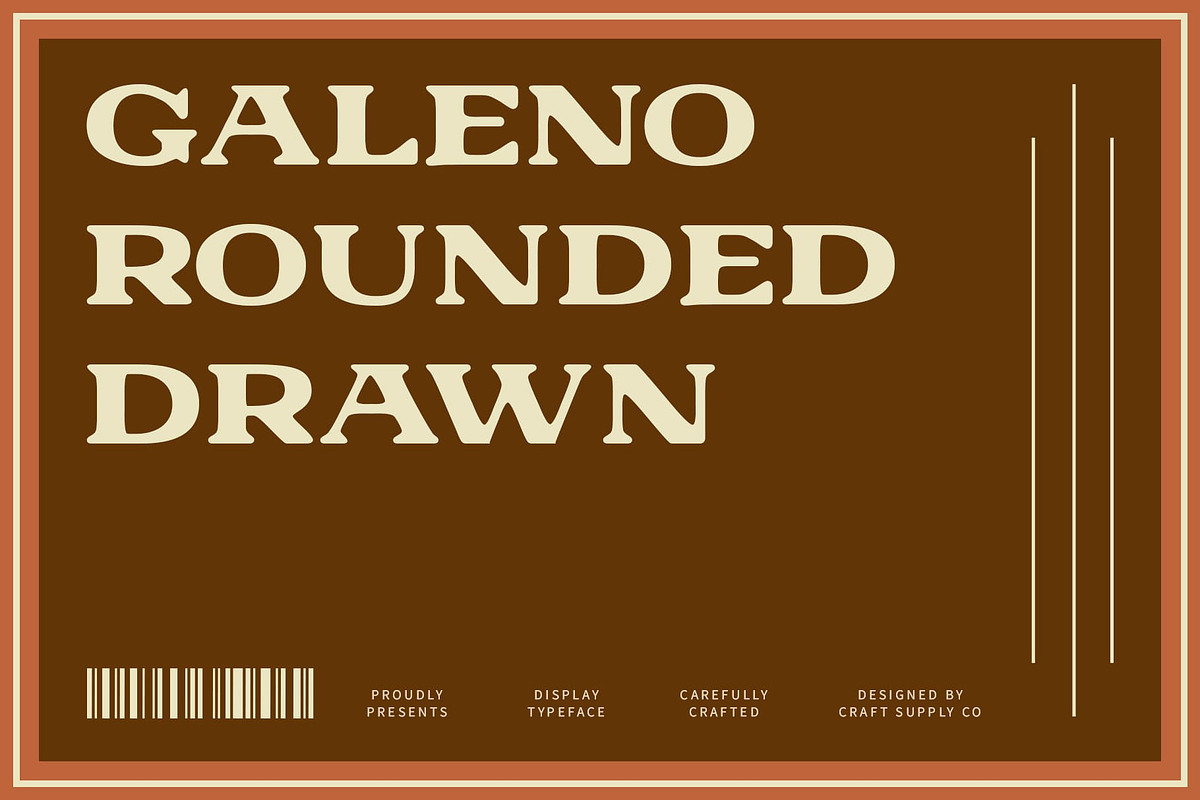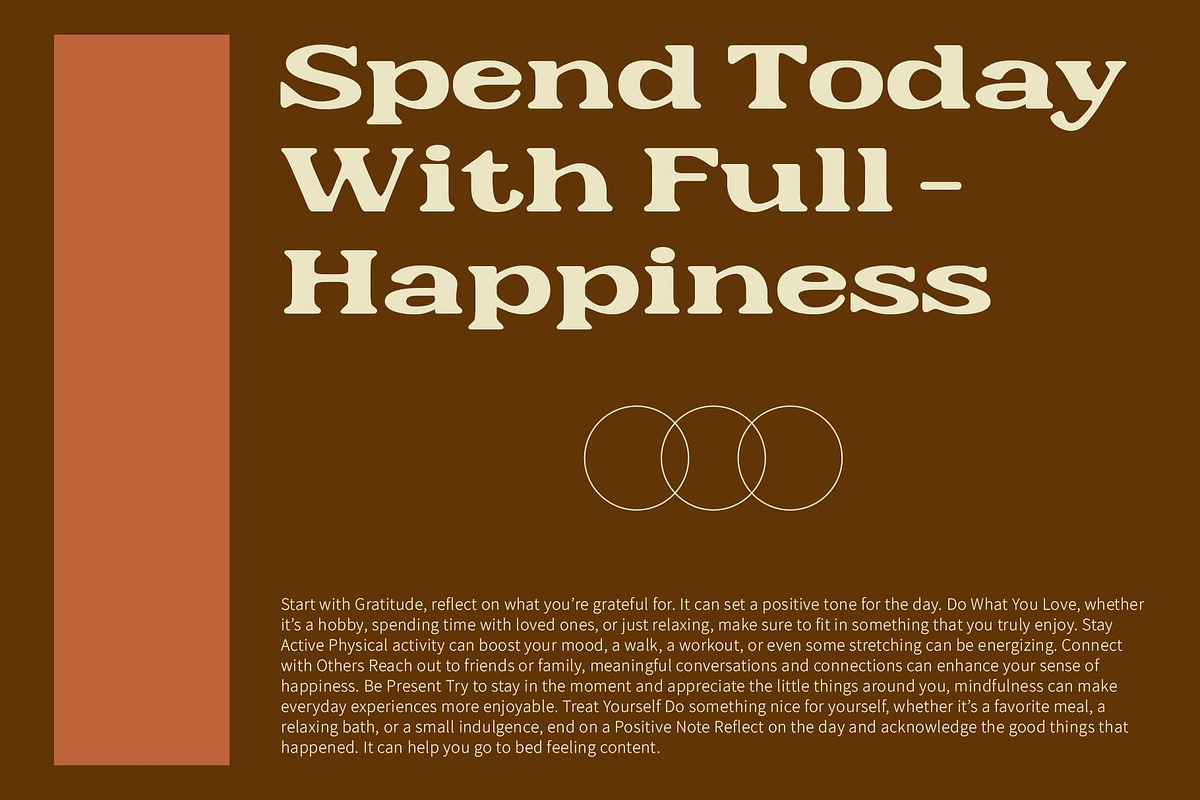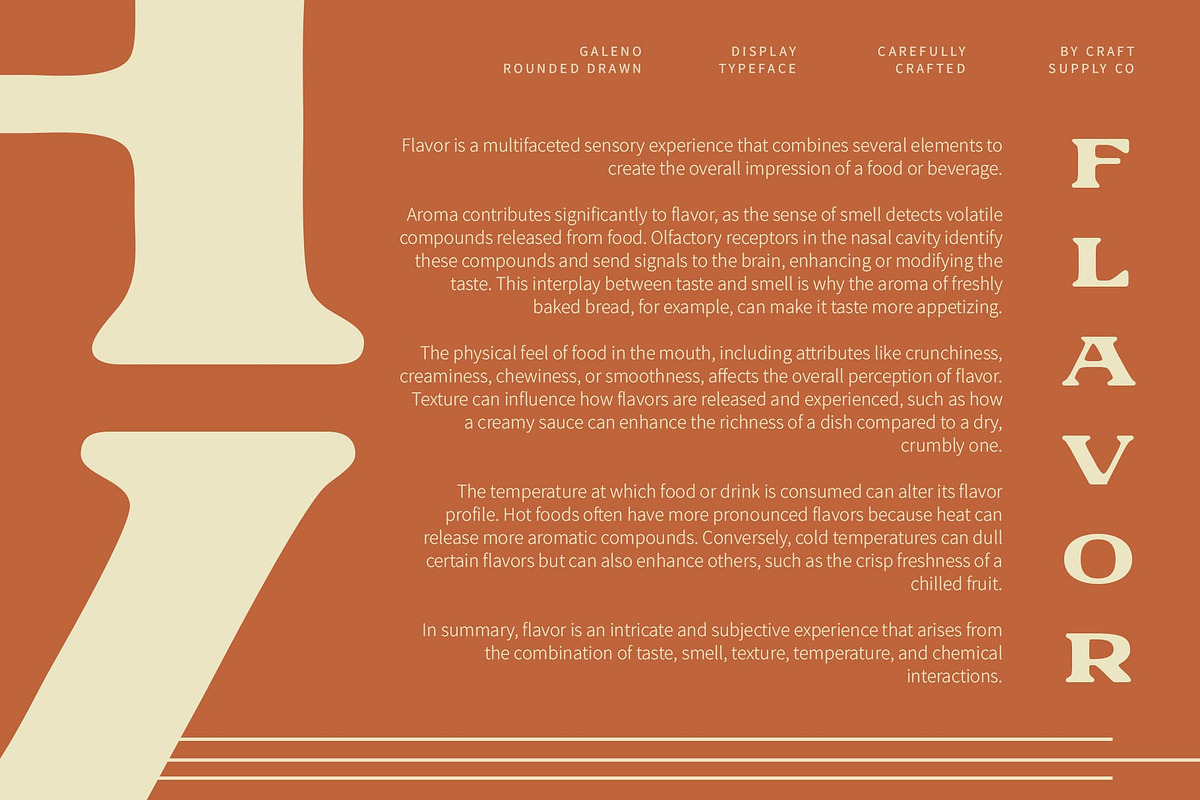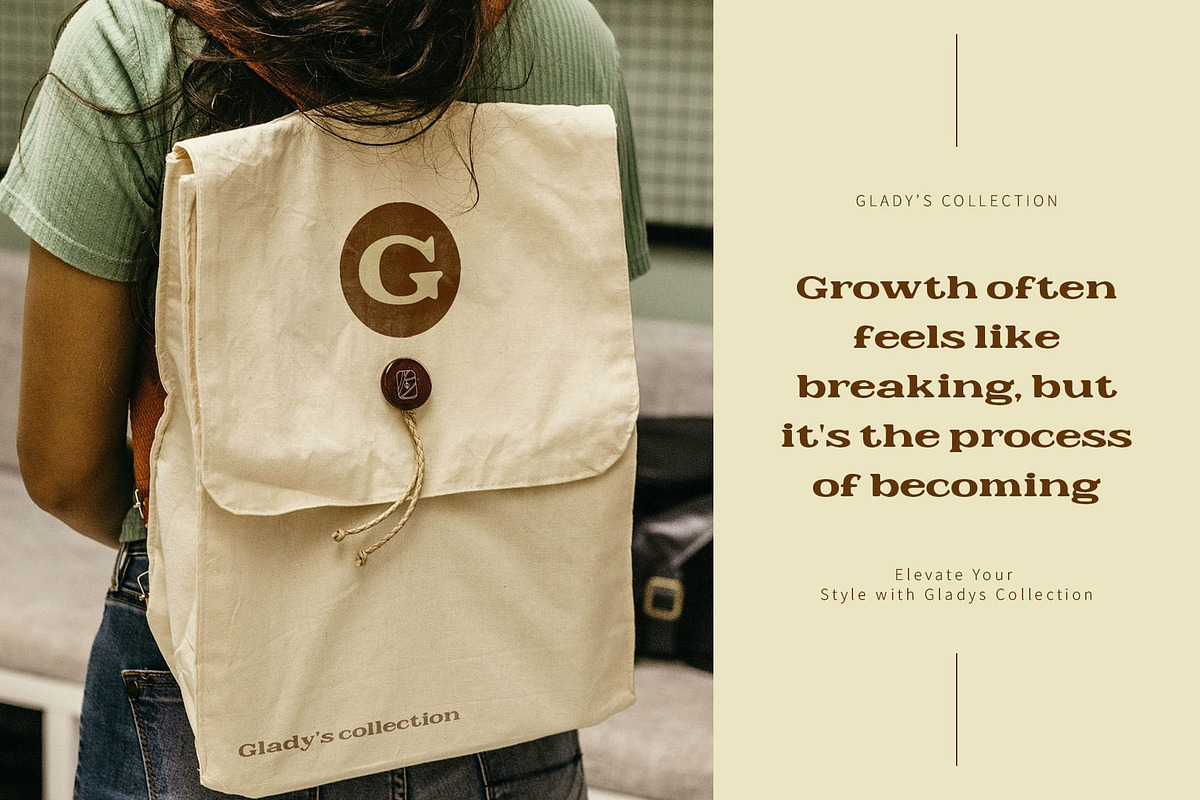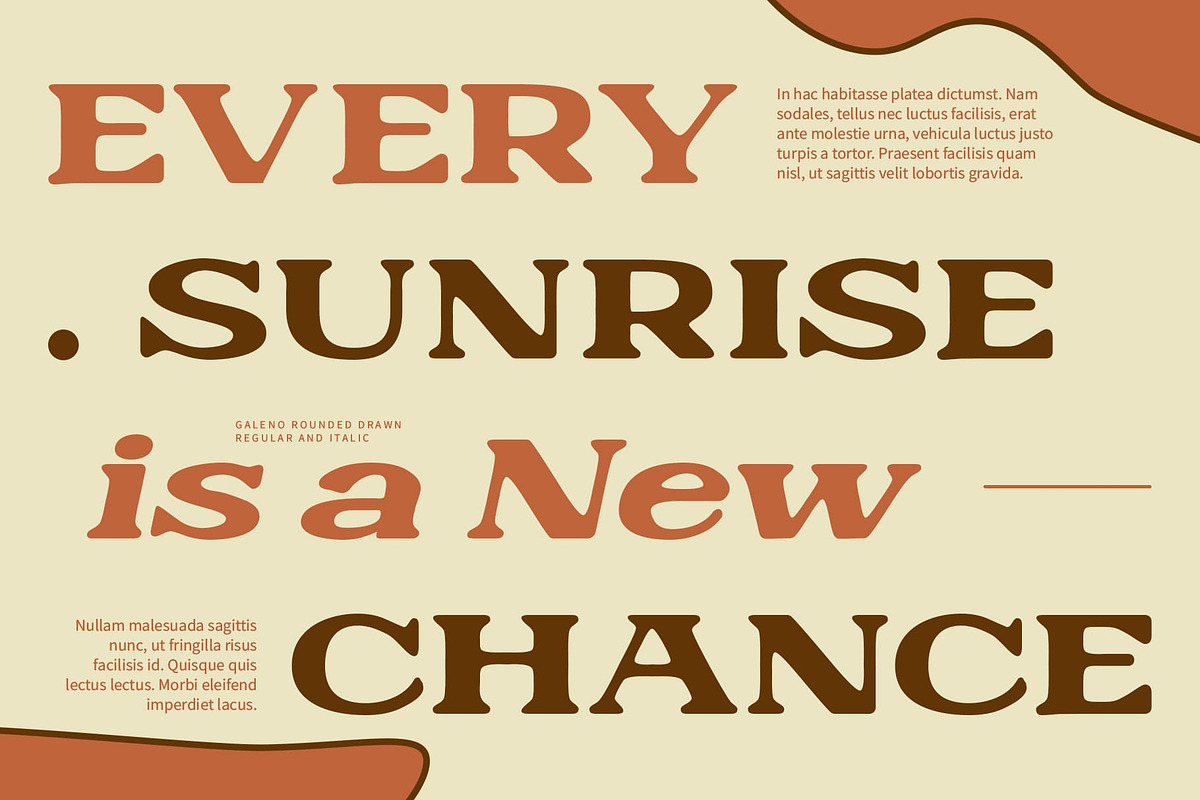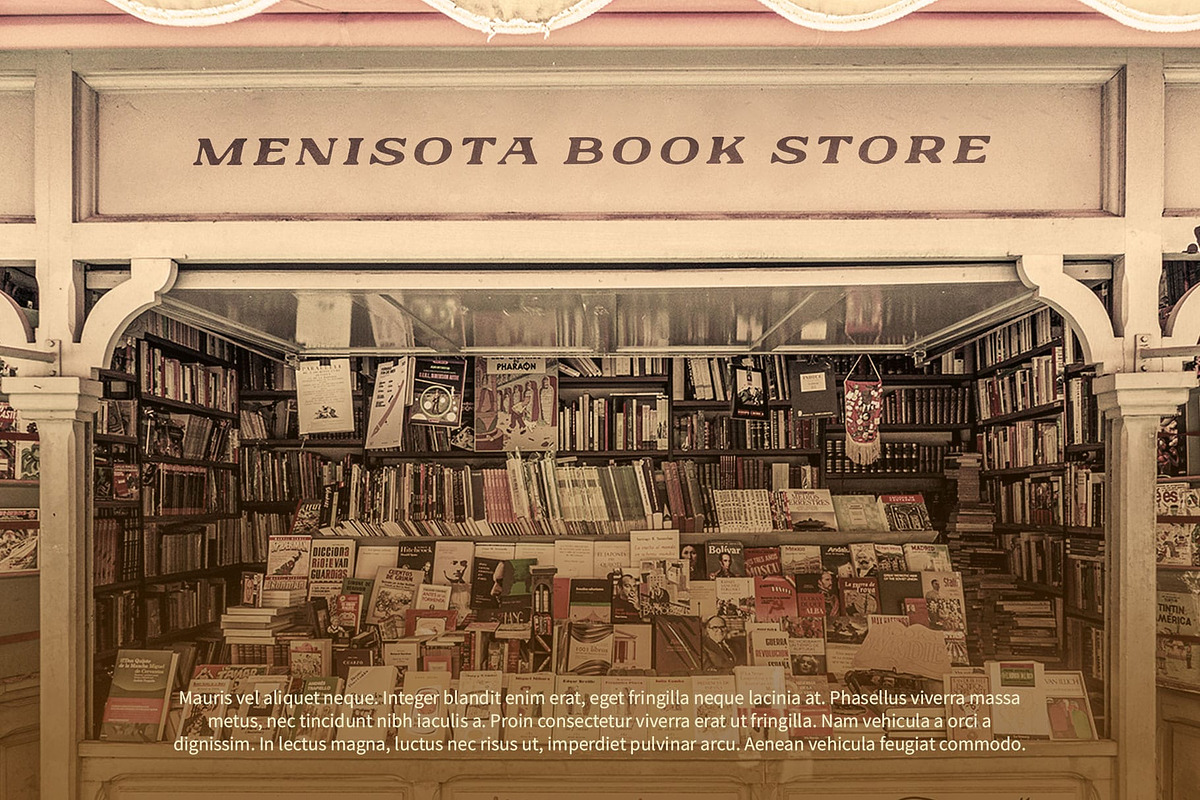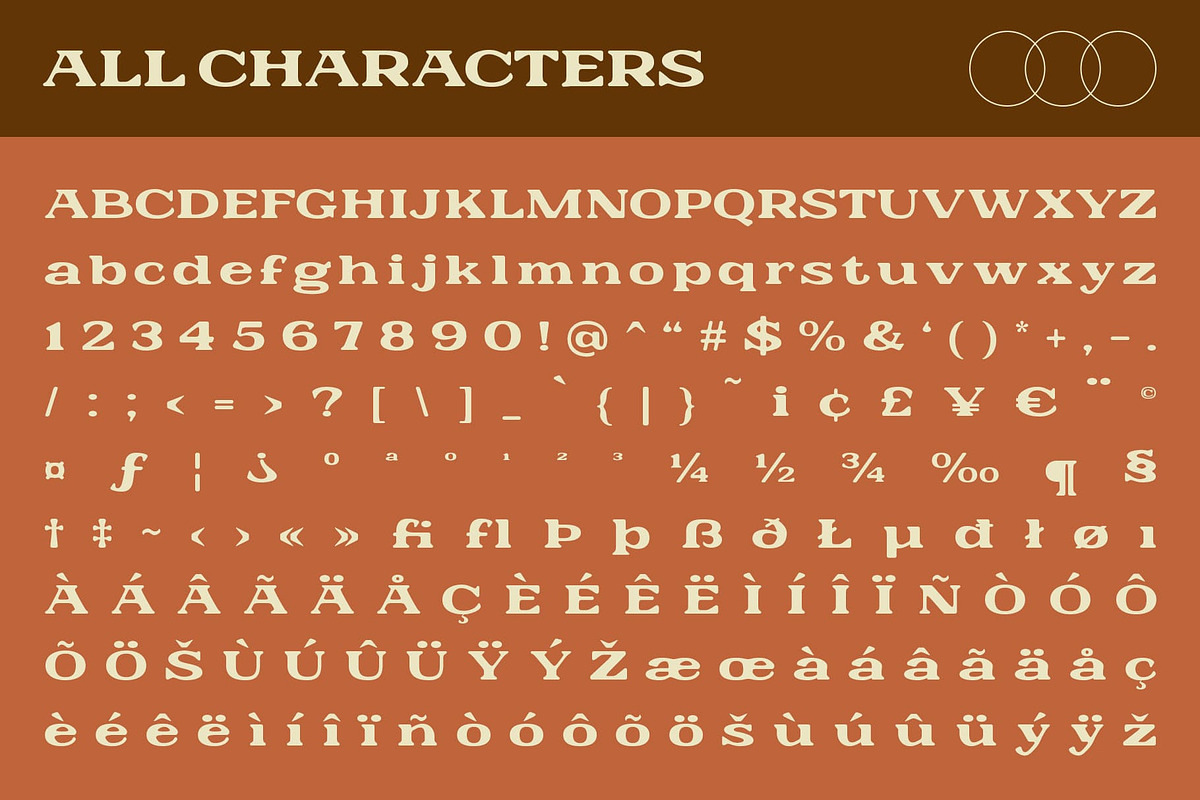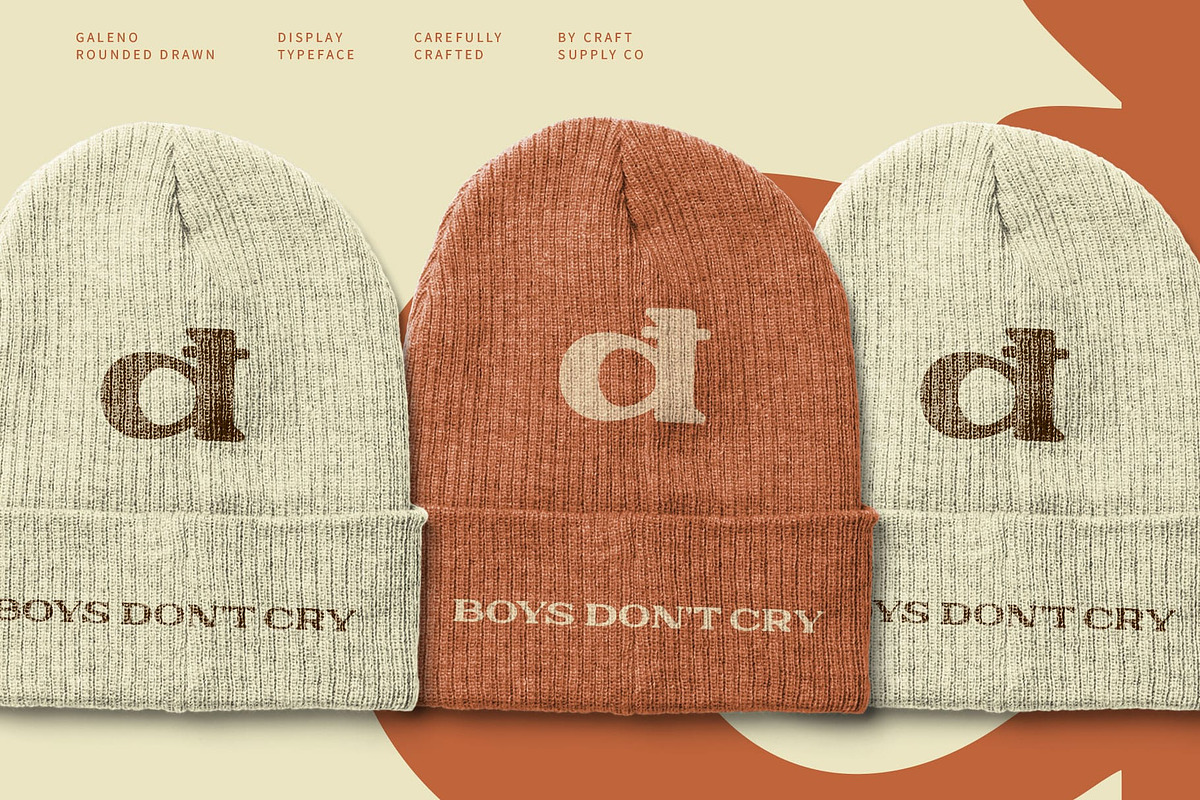
Galeno Rounded Drawn
Galeno Rounded Drawn Font: Nostalgic Serif with Handcrafted Charm
Expanded, Rounded Shapes with a Drawn Effect Galeno Rounded Drawn is a serif font that blends expanded and rounded letterforms with a distinctive drawn effect. Its vintage-inspired design evokes a nostalgic, retro feel, bringing a classic and friendly touch to any text. The expanded shapes enhance readability, while the rounded edges offer a welcoming, timeless appeal.
Artisanal Quality for a Vintage Feel The drawn effect adds an artisanal, handcrafted quality to Galeno Rounded Drawn, infusing it with a unique, personal touch. This combination of vintage design and handcrafted texture makes the font perfect for creating a nostalgic atmosphere in your projects.
Ideal for Retro Branding and Creative Projects Whether for retro branding, vintage posters, or creative designs, Galeno Rounded Drawn excels in delivering a charming, timeless aesthetic. Its classic serif elements and rounded shapes provide a warm, inviting presence, making it ideal for projects that seek to capture a sense of nostalgia and elegance.
Versatile for Nostalgic and Artistic Designs Galeno Rounded Drawn’s blend of expanded, rounded shapes and artisanal quality ensures versatility across various design applications. From vintage-inspired branding to nostalgic promotional materials, this font adds a classic, friendly touch that enhances the overall visual impact of your projects.